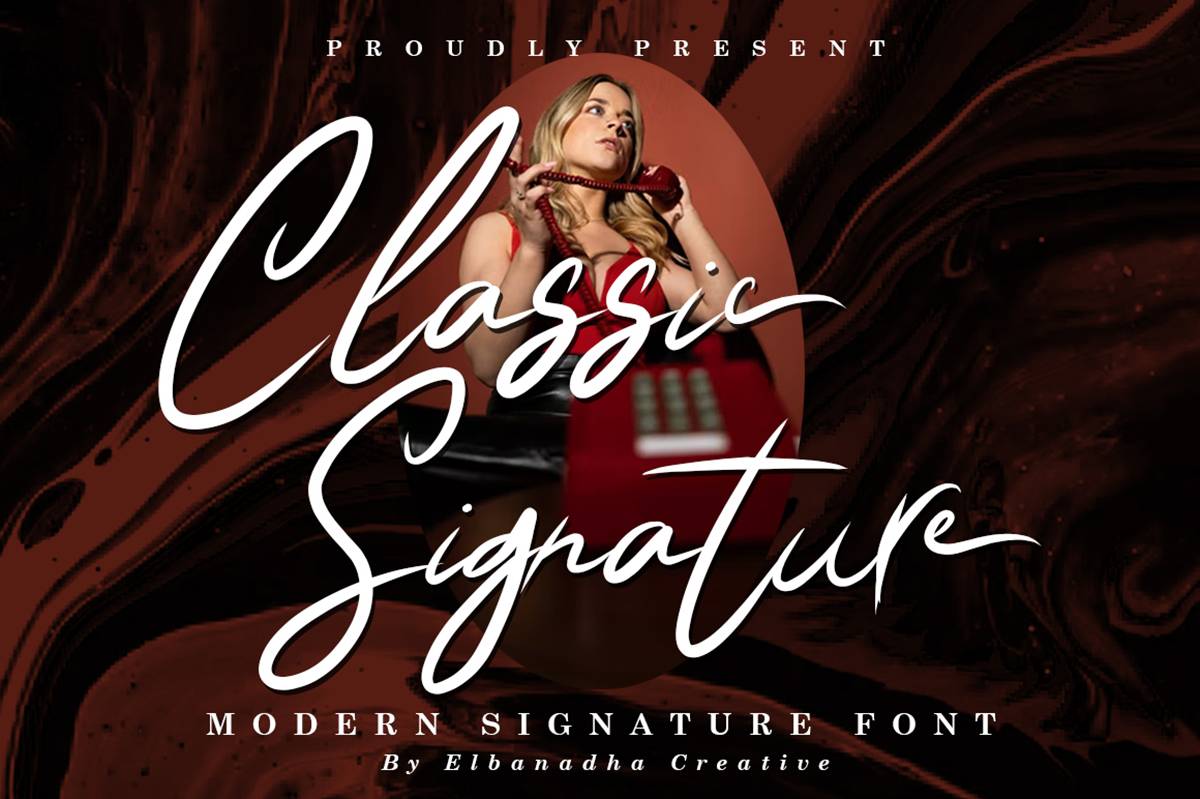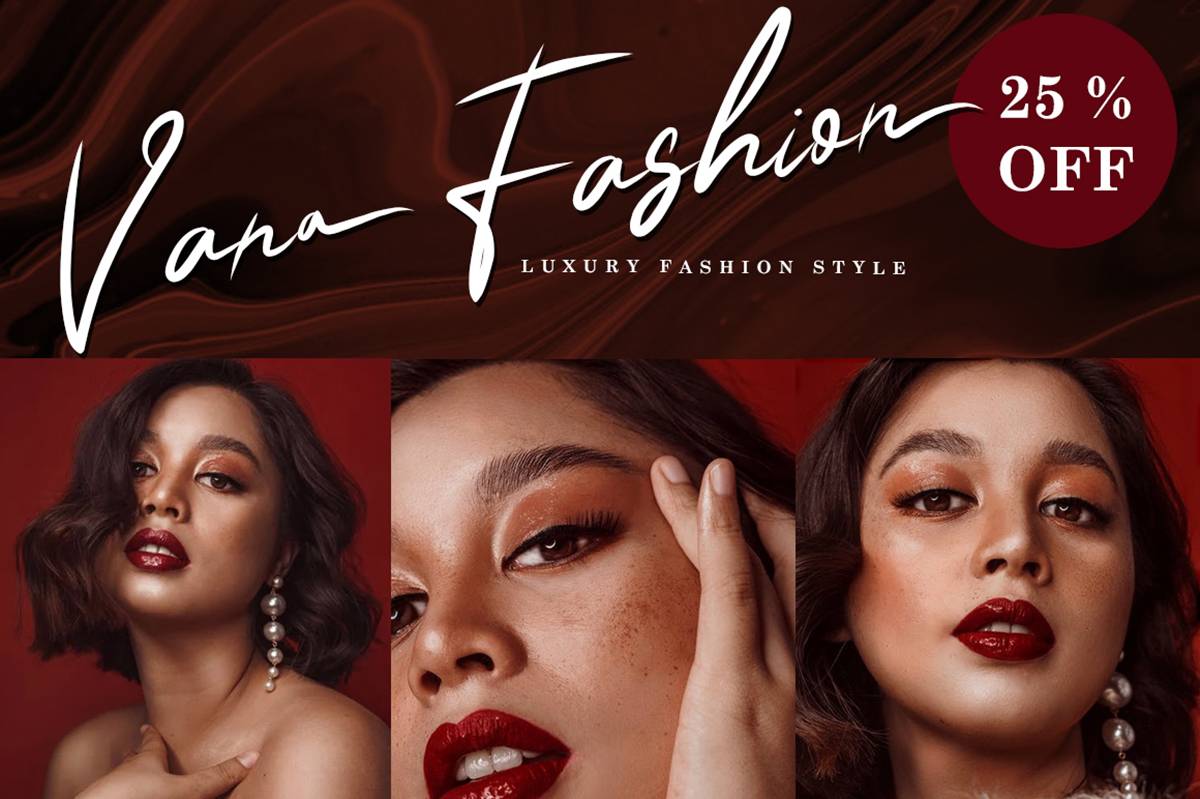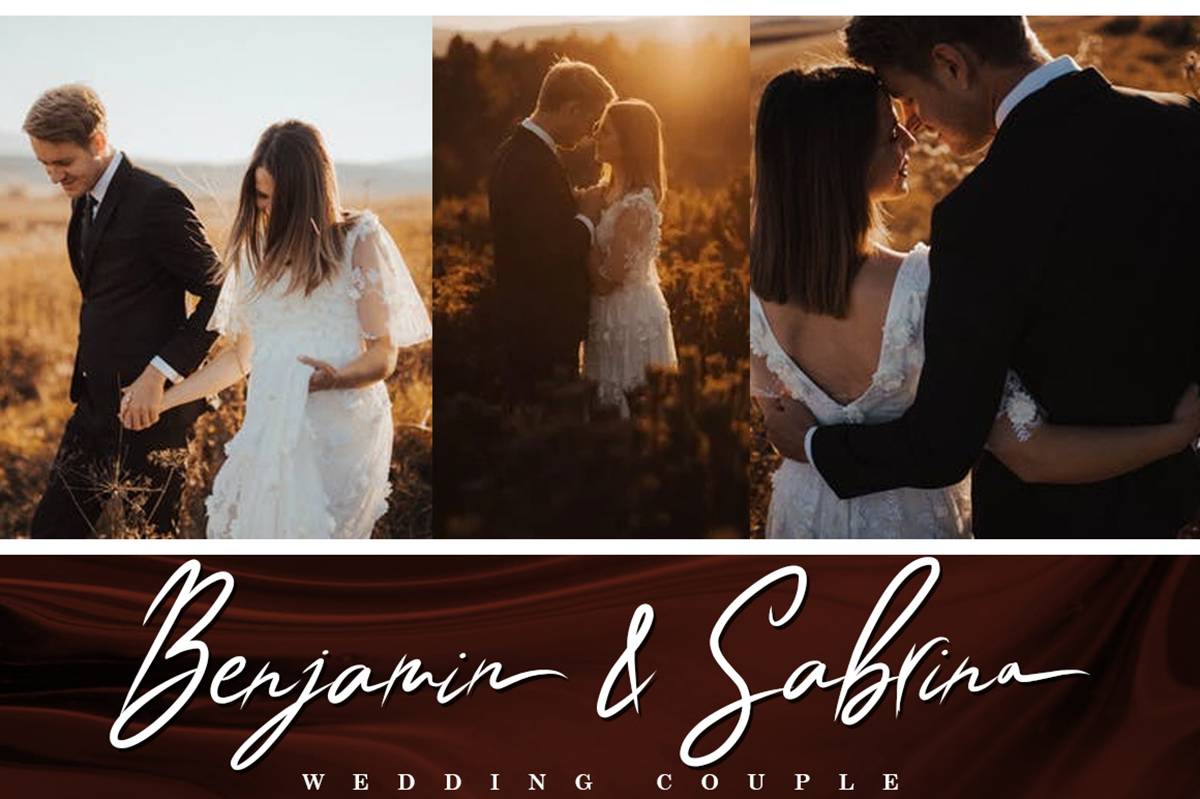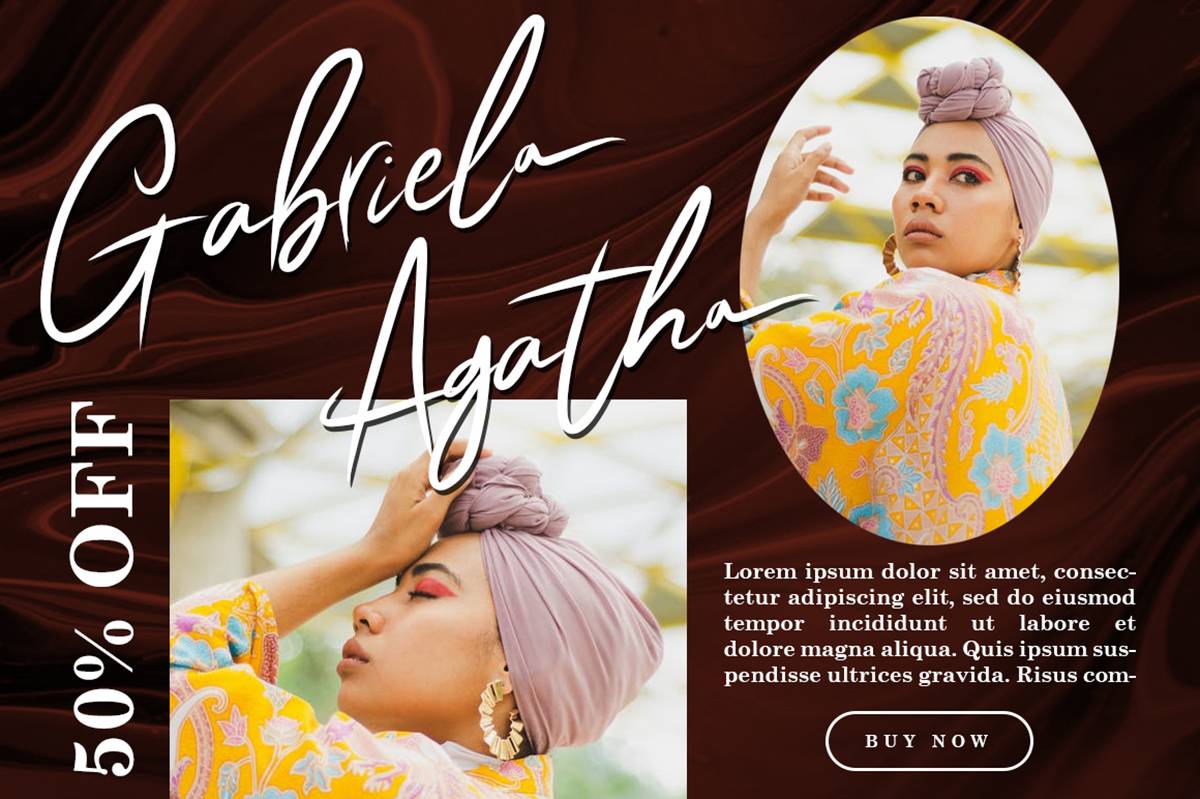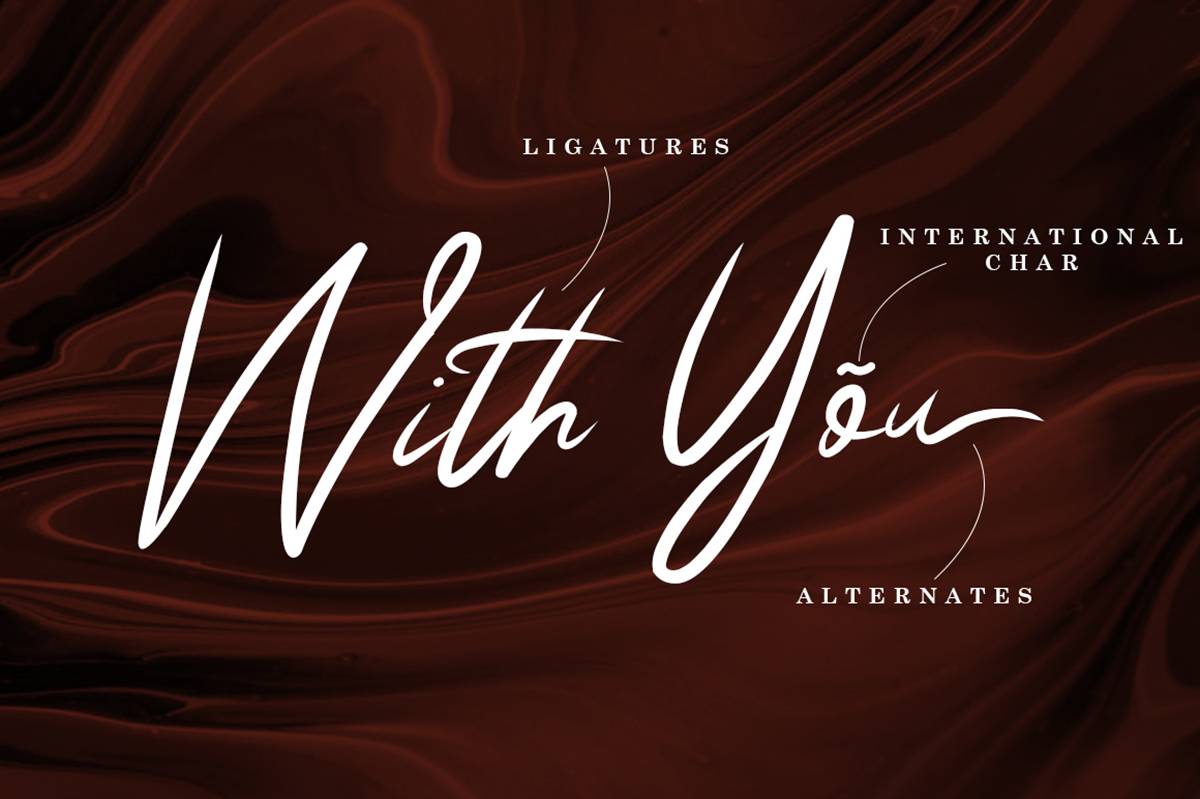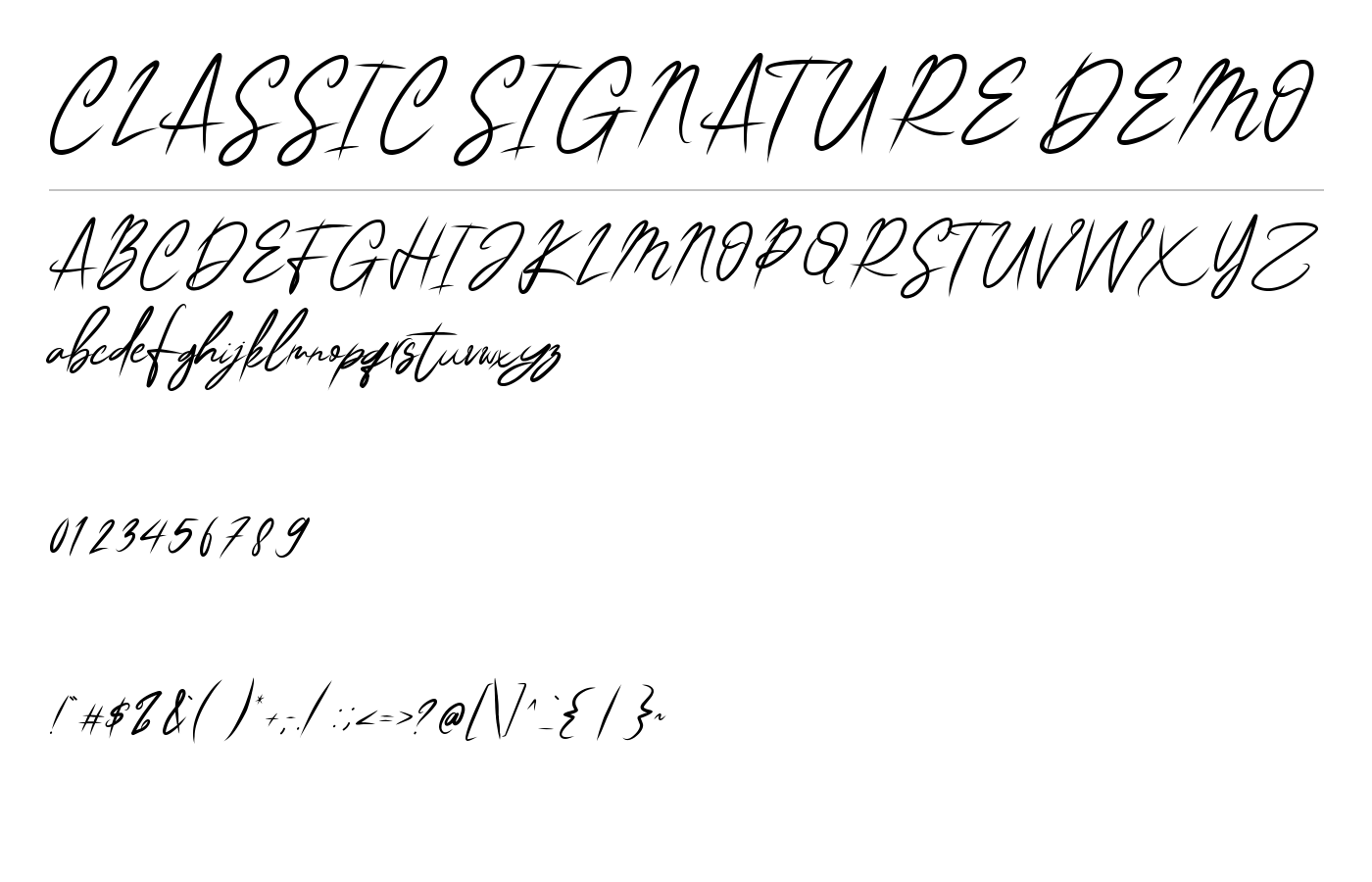
Classic Signature Font is an elegant, handwritten script with a tall, slender style that mimics natural signature strokes. Its refined and fluid letterforms give it a sophisticated yet personal feel, making it ideal for branding, invitations, and stylish print or digital projects that want a touch of class and individuality.
Classic Signature Font
About Classic Signature Font
| Font family | Classic Signature Font |
| Release date | 2022-02-09 |
| Designer | Elbanadha Creative |